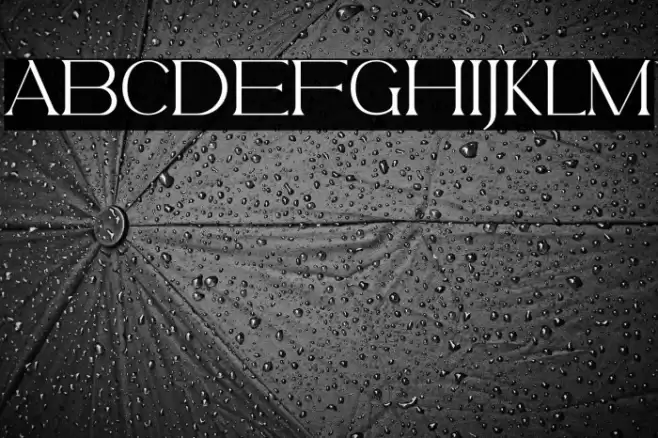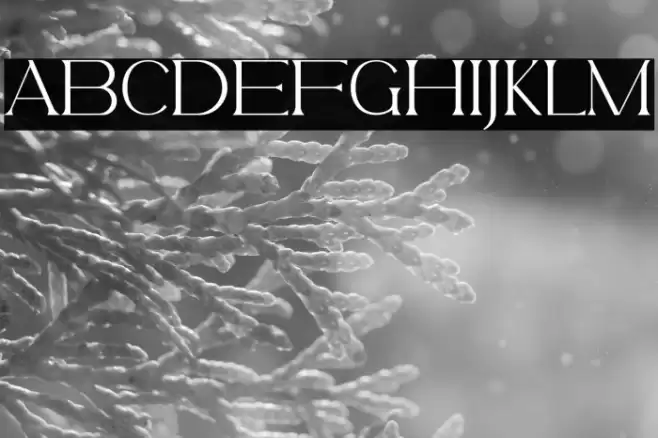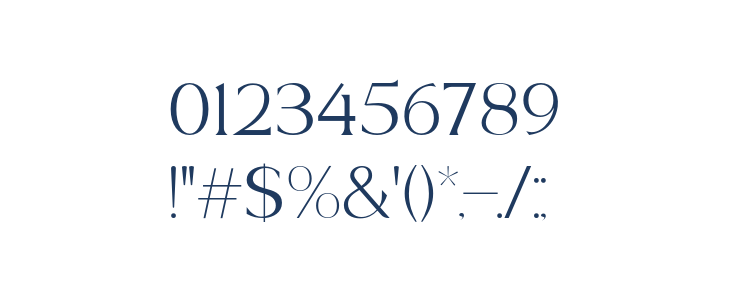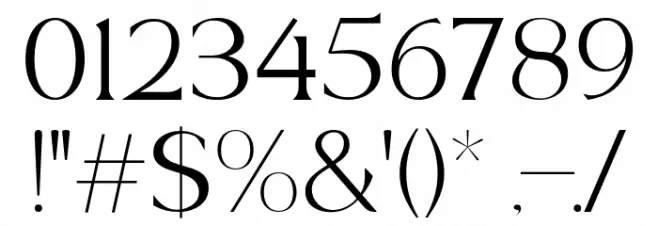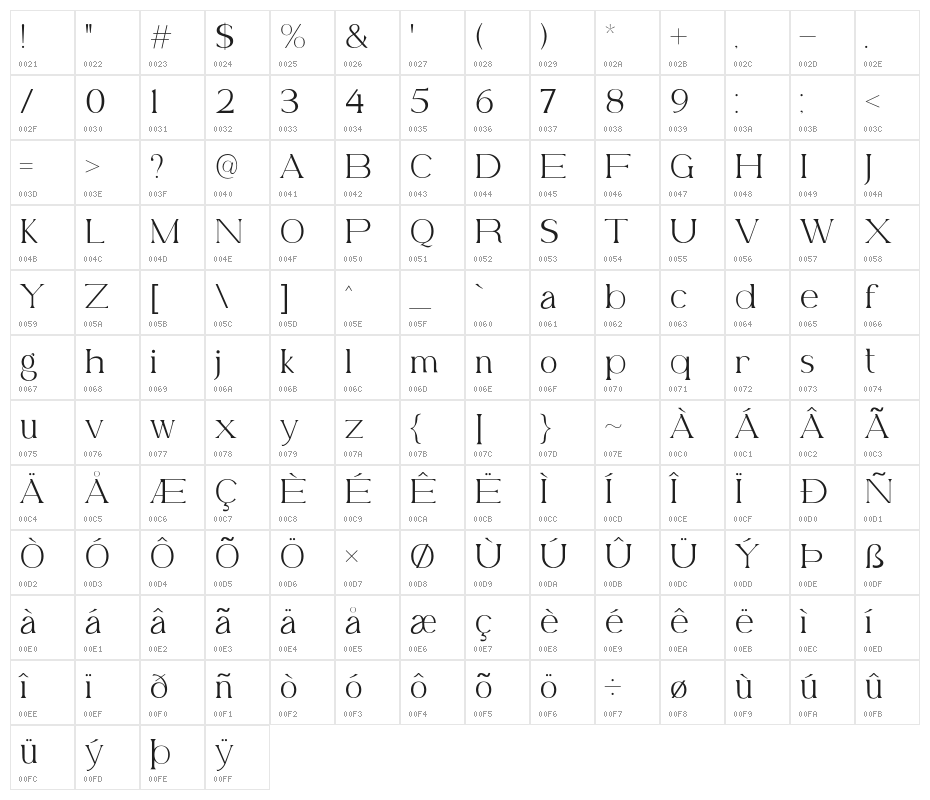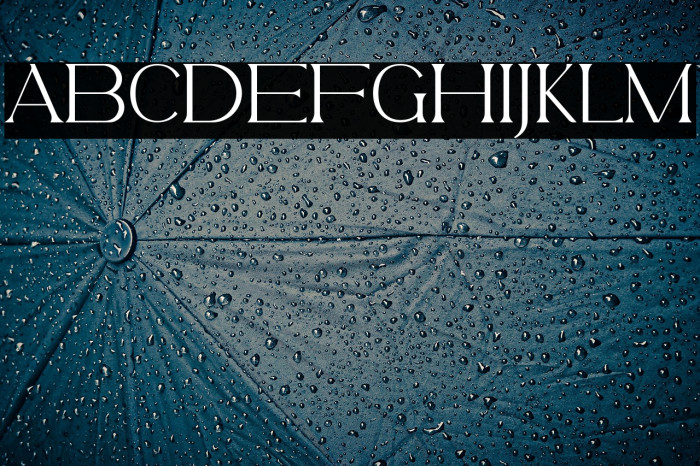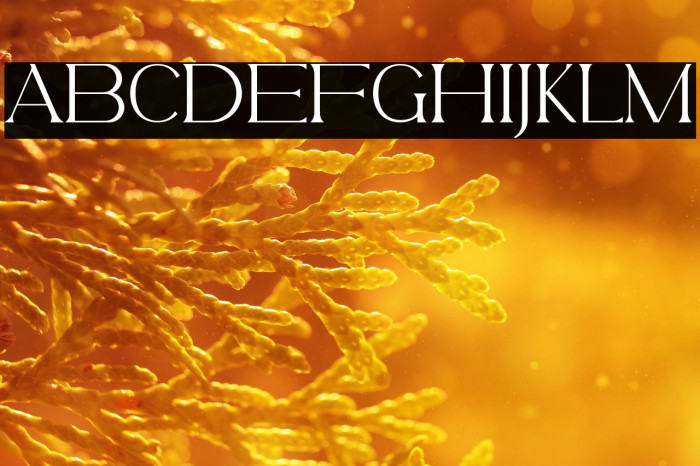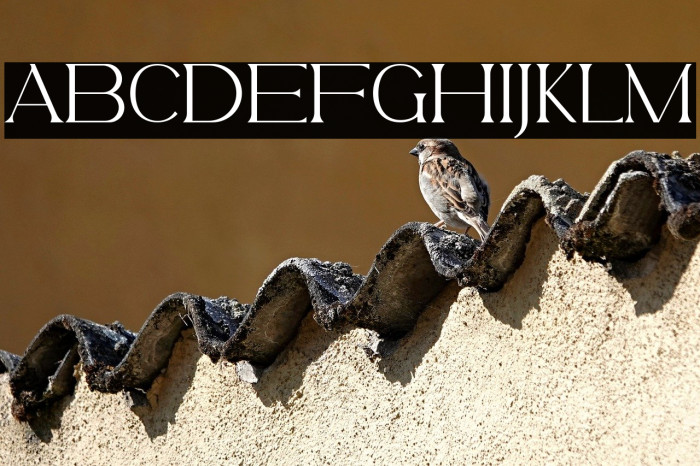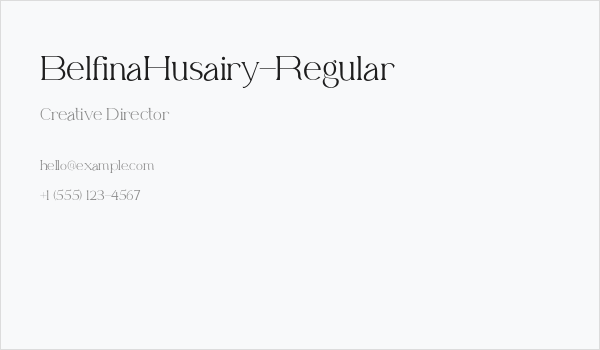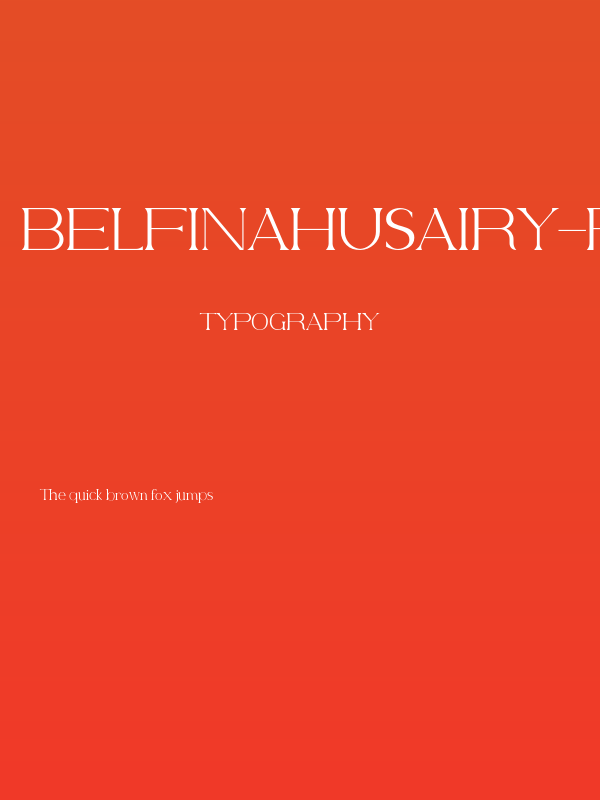
BelfinaHusairy-Regular Font
BelfinaHusairy-Regular Description
This font features a sophisticated and elegant design with a modern twist. The uppercase letters are characterized by their tall, slender forms and subtle serifs, giving them a refined and stylish appearance. The lowercase letters maintain a consistent flow with gentle curves and a balanced structure, enhancing readability. Numbers are designed with a similar elegance, ensuring uniformity across the typeface. Special characters are thoughtfully crafted to match the overall aesthetic, making this font versatile for various applications. The combination of thin and slightly thicker strokes provides a medium contrast, adding to its visual appeal.
A sophisticated serif font with elegant, slender forms and medium contrast from Uncategorized fonts.
- Proposed Projects: Ideal for luxury branding, editorial design, wedding invitations, and high-end product packaging.